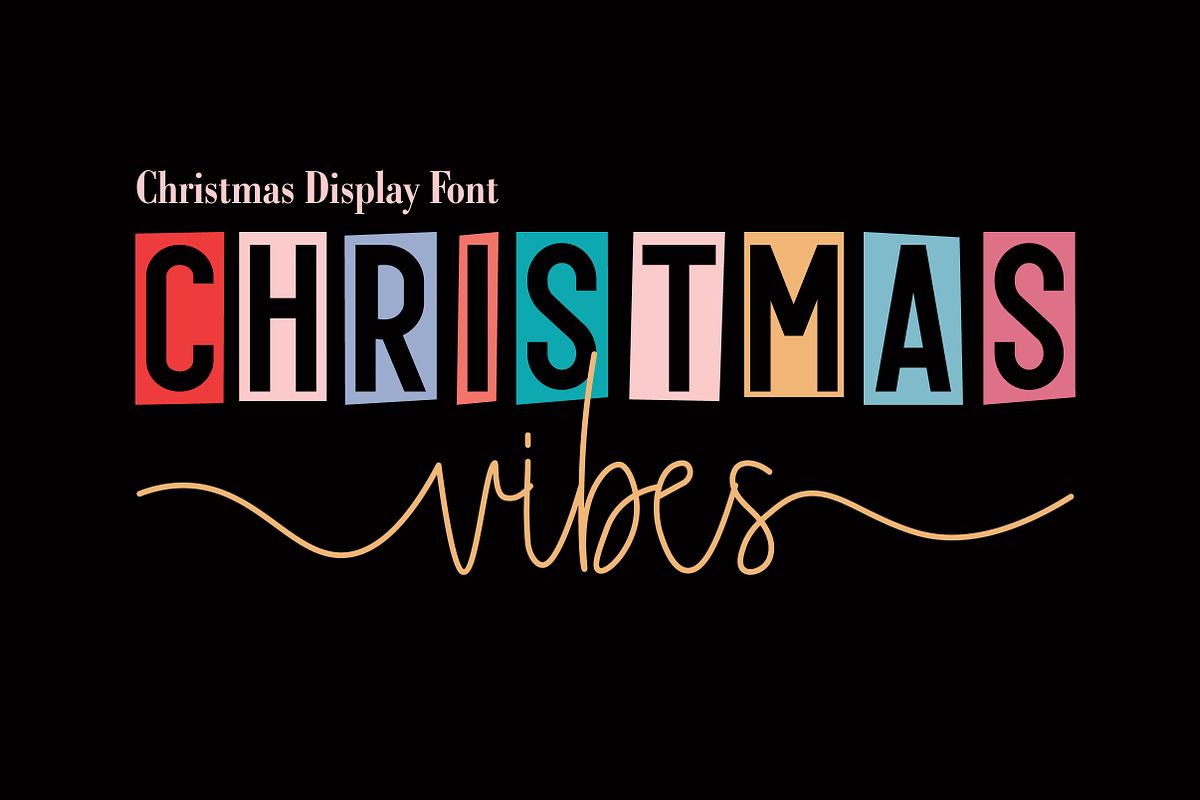
Christmas Vibes Duo Font Free Download is a festive and versatile font duo that brings holiday cheer to your designs. Featuring a playful script font paired with a bold, clean sans-serif, this duo is perfect for creating seasonal graphics, holiday invitations, greeting cards, social media posts, and Christmas-themed branding. The script font brings a personal touch, while the sans-serif adds modern, readable contrast.
Using the Christmas Vibes Duo Font Free Download brings warmth and excitement to your typography. Whether you're designing holiday marketing materials, custom gifts, or Christmas party invitations, this font duo is ideal for creating joyful, eye-catching designs that capture the festive spirit.